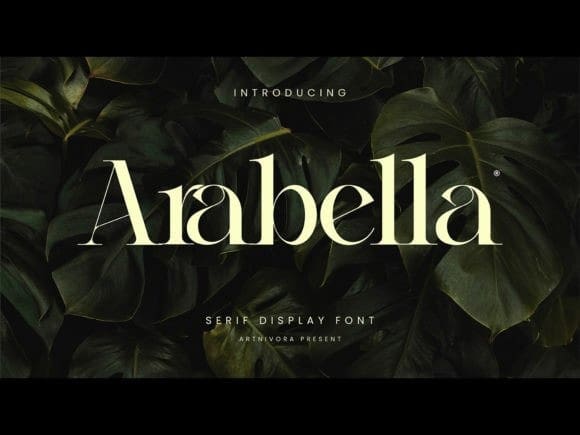
Arabella Typeface
Arabella Typeface, is a classic Serif Display Font that brings timeless elegance to your projects. With its refined and clear design, Arabella adds a touch of sophistication to any display text. Ideal for headings, titles, or any attention-grabbing text, Arabella combines a traditional feel with a modern twist. Elevate your design with this versatile Serif font, ensuring a polished and distinguished look for your creative endeavors.